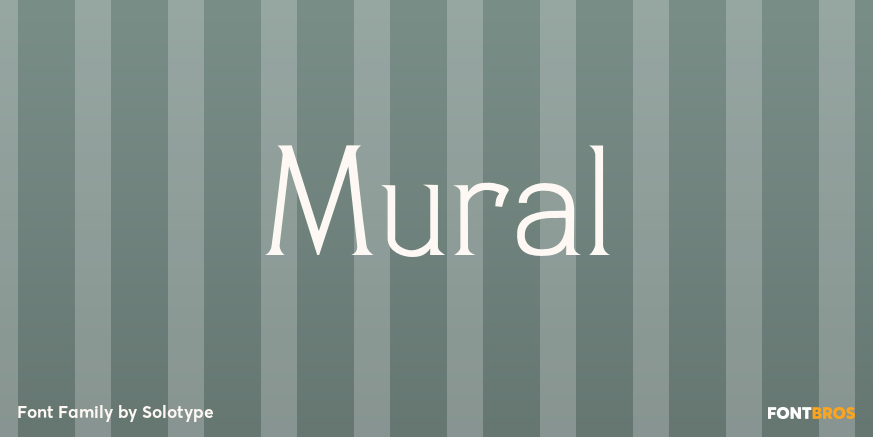
HomeFont BrosHistoricalMural HistoricalSerif Mural FacebookXPinterestWhatsApp 1 of 1 About Mural Another caps-only font for which we have designed a lowercase. It was originally brought out in smaller sizes for card work, but proved to be so popular that sizes up to 48 point were soon added.  DOWNLOAD ON FONT BROSThis font is sold and delivered by Font Bros. Font Canyon may earn a commission if you buy through this link. People also explored Bulgary Font Sui Genesis Winter Font Paramount Font Festive Description Font Richard Miller Rounded Viktoria Font Little Mermaid Font Heroik Font 405 0 TagsMuralMural Font Previous articleKewlscriptNext articleDangerfield LEAVE A REPLY Cancel reply Comment: Please enter your comment! Name:* Please enter your name here Email:* You have entered an incorrect email address! Please enter your email address here Website: Save my name, email, and website in this browser for the next time I comment. Personal Use Free Alligator Font Personal Use Free Read more about this font Qiwqiw Personal Use Free Read more about this font The Quick Personal Use Free Read more about this font Latifah Personal Use Free Read more about this font BLOG Free Fonts Risk: Why Free Fonts Can Be Dangerous for Designers Free Fonts Risk: Why Free Fonts Can Be Dangerous for Designers Using free fonts is a common practice in web and graphic design. However, the... Fonts That Capture the Spirit of New York City Top 7 Google Fonts Alternatives for Faster and Privacy-Friendly Web Design (2025) Free vs Paid Fonts: Why Investing in Premium Fonts Is Worth It